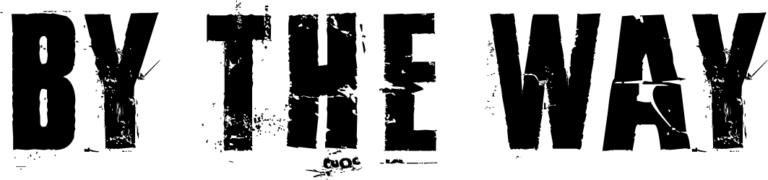
Dirty Socks Skinny Font
Need a dirty makeover on your text? We have just the thing for you! Dirty Socks Skinny is adorned with big and stencil design elements and an edgy look. It will make your text look cool and scary. You can use it for any Halloween posters, military books, channel banners, movie titles, and informal headlines.